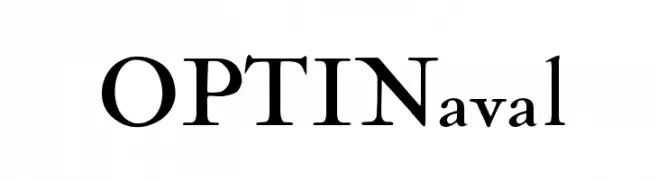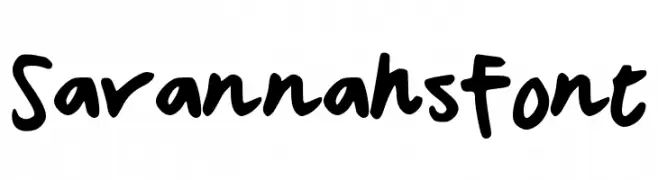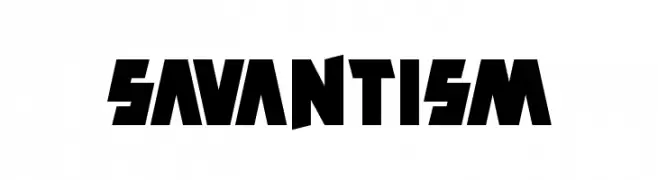
A bold, geometric font with sharp, angular edges and a modern aesthetic.
A classic serif font with elegant contrast and sharp serifs.
A bold, high-contrast serif font with a classic and authoritative style.
A bold, brush-style font with dynamic strokes and playful curves.